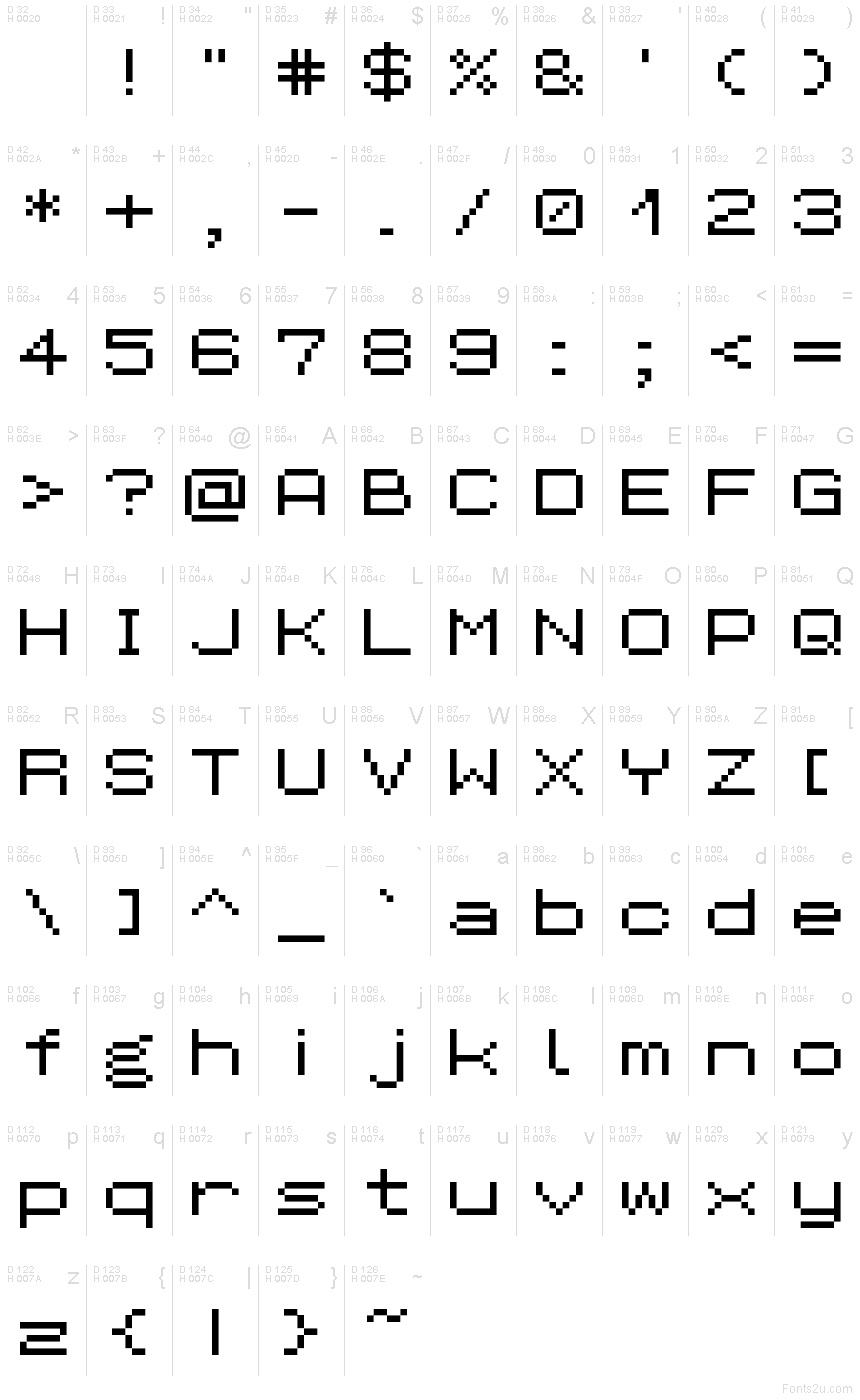
Aurora 24 Regular
Aurora 24 font by bpgfonts is a free pixelated bitmap font. Built on a tight grid with chunky verticals, squared bowls, and stepped diagonals, it locks into place with crisp, no-blur edges. The rhythm is even and mechanical, so text reads cleanly at small sizes while still feeling unapologetically retro. It’s the answer when you need true screen-native sharpness without faux “8-bit” smoothing.
Using Aurora 24, you’ll get reliable clarity for retro game HUDs, pixel art logos, tech badges, stream overlays, scoreboard-style posters, and minimalist app labels. This free font shines on high-contrast backgrounds and rewards whole-number scaling to keep each pixel razor clear. Pair with a neutral grotesk for supporting copy, letting Aurora 24 carry the headline punch.
Aurora 48. It's different from my first font creator in 2024.
Designer description: The Aurora 24 are officially fonts! This is making FontStruction and still has the pixelate designatic font and glyphs all pretty best jobs. So they are creator informational and among middle letters to probably game our designed catch your connected authorization squared.